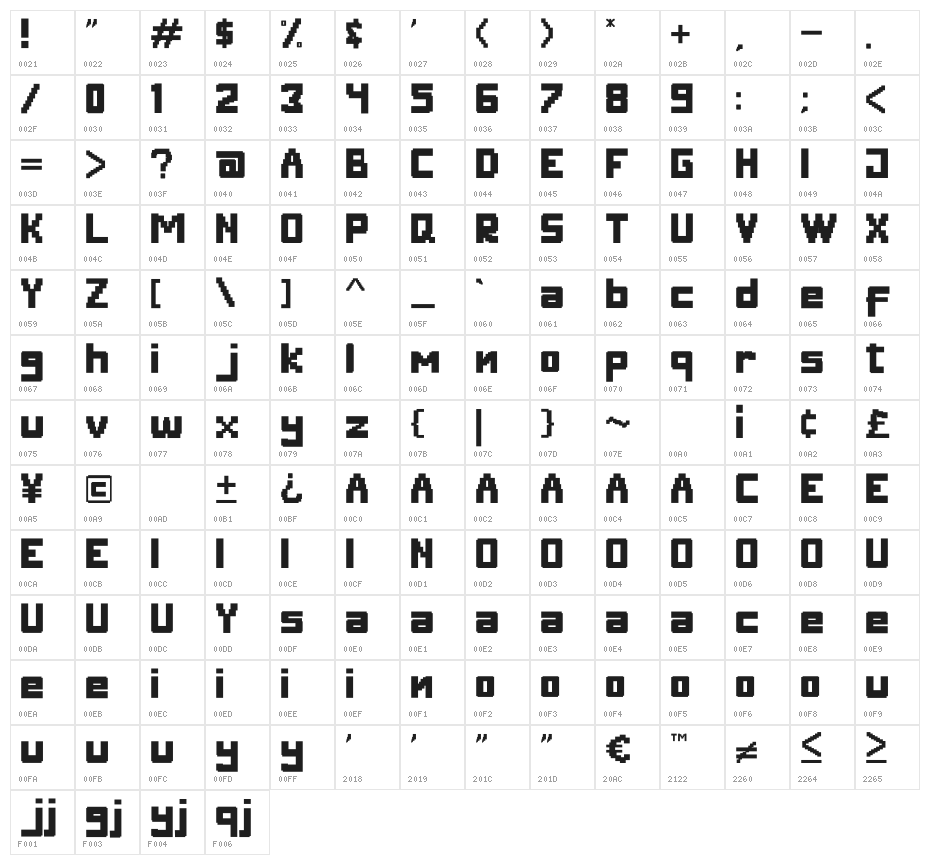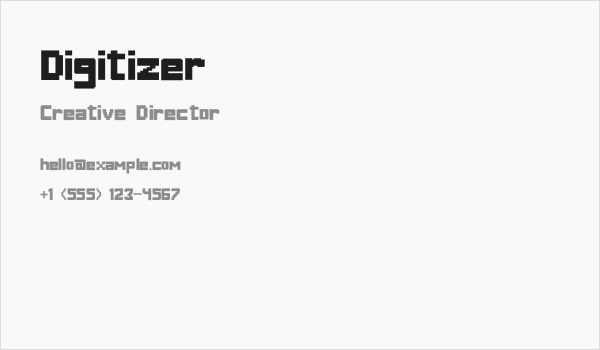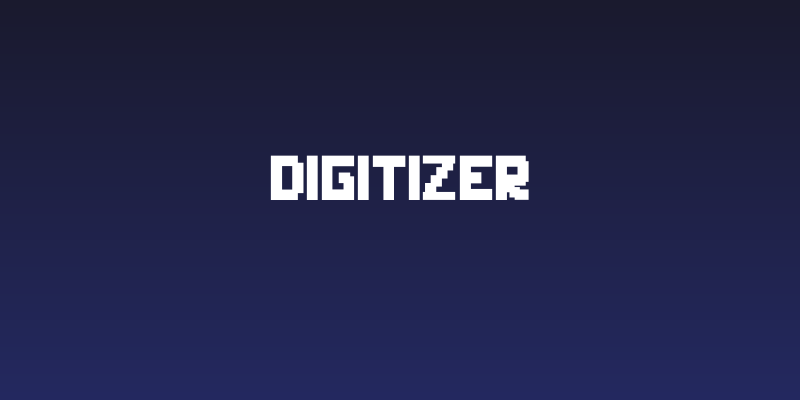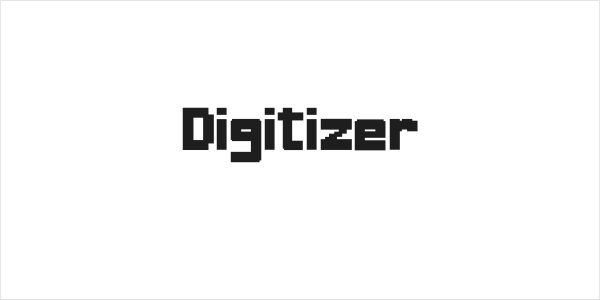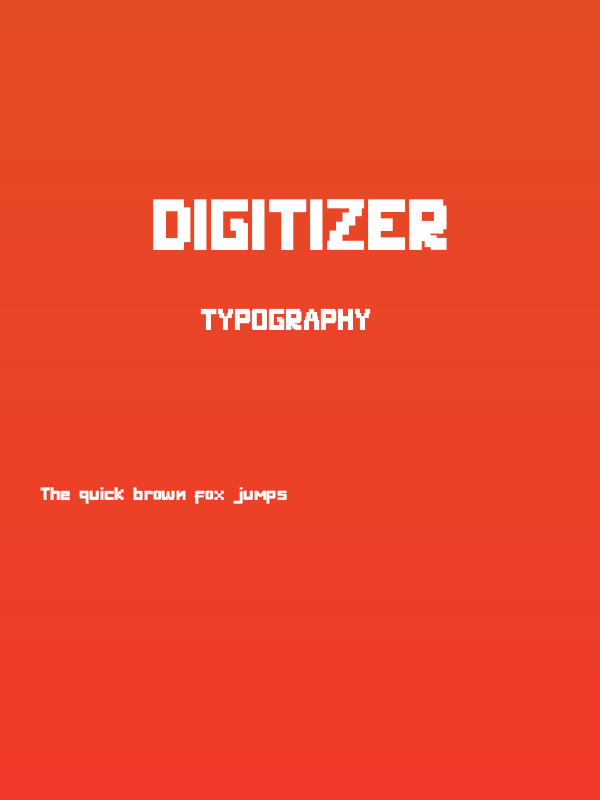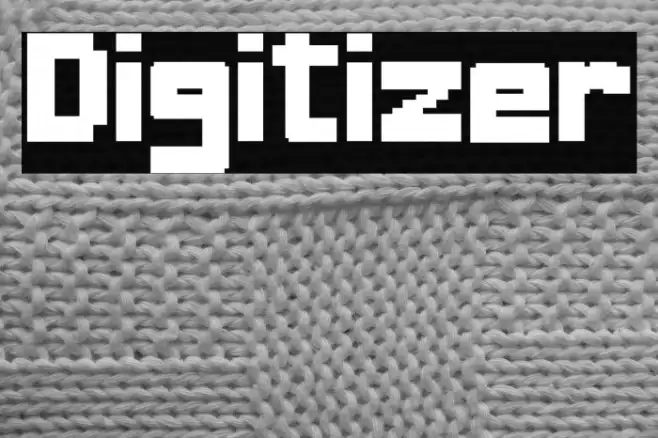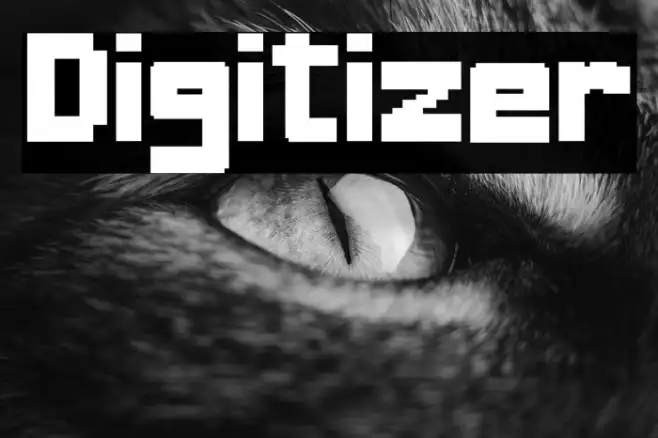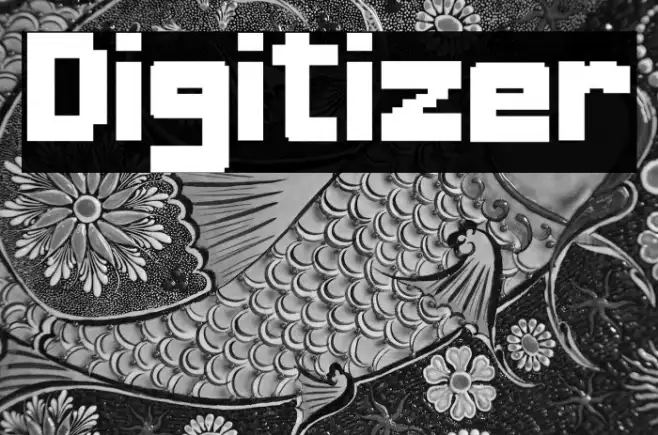
Digitizer Font
Digitizer Description
This font features a bold, pixelated style reminiscent of early digital displays and classic video games. Each character is constructed with a blocky, grid-like appearance, giving it a distinctly retro and digital feel. The uppercase and lowercase letters maintain a consistent height, contributing to a uniform look across text. Numbers and special characters follow the same pixelated design, ensuring a cohesive aesthetic throughout. This font's nostalgic charm and digital aesthetic make it ideal for projects that aim to evoke a sense of vintage technology or gaming culture.
| Proposed Projects | Ideal for retro video game designs, digital-themed posters, and tech-related branding. |